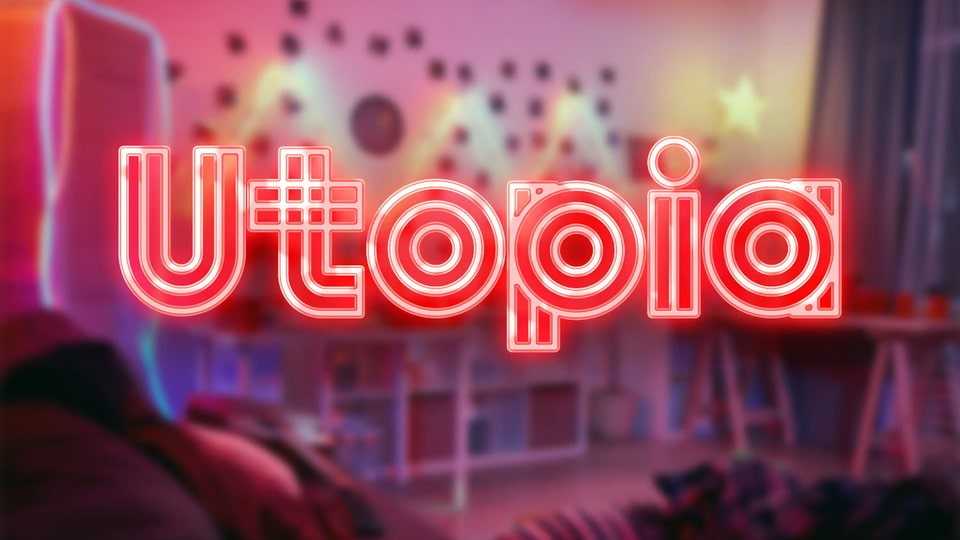
Download Utopia font, a display typeface that combines the structured elegance of geometric shapes with a delightful retro twist. Utopia font captures the essence of mid-century modern design and infuses it with a contemporary outline style.
Designer: Ryan Silva